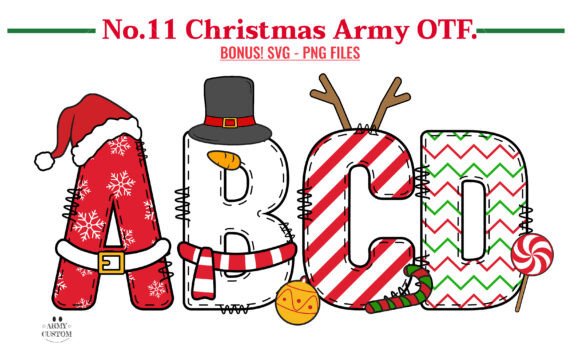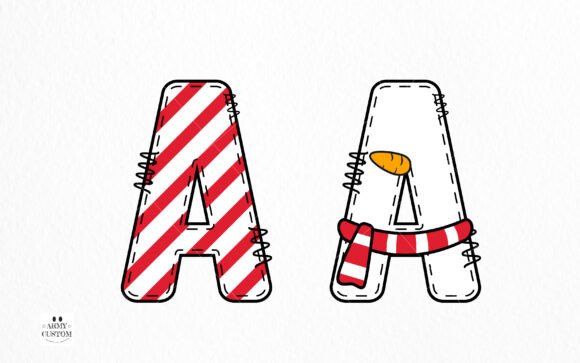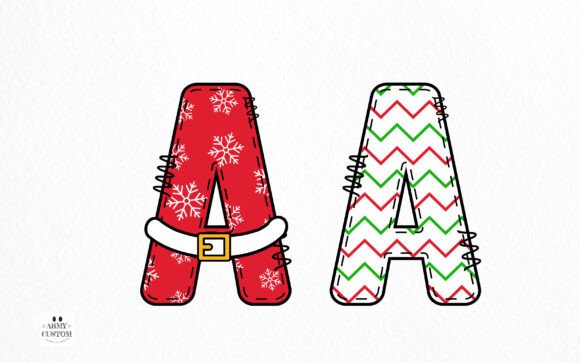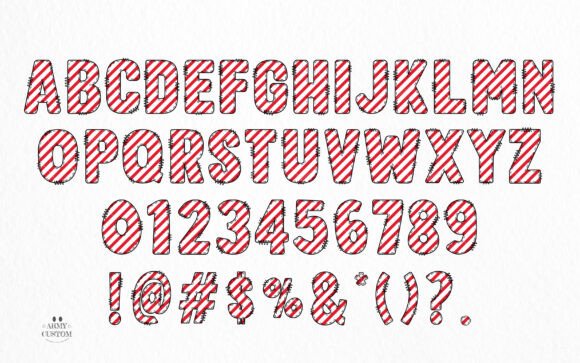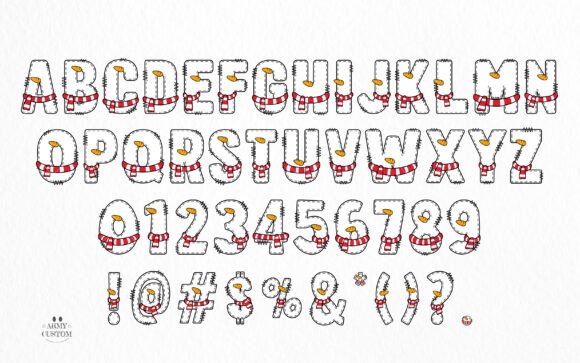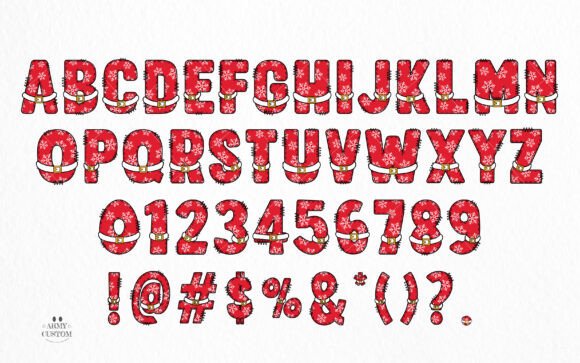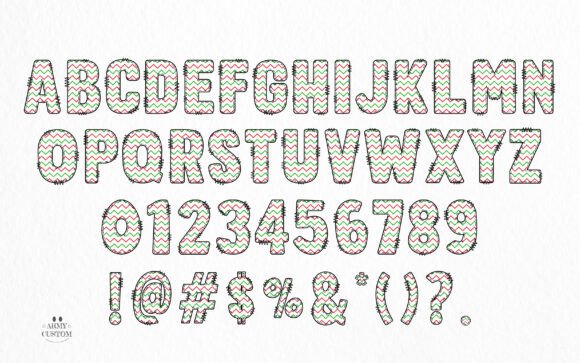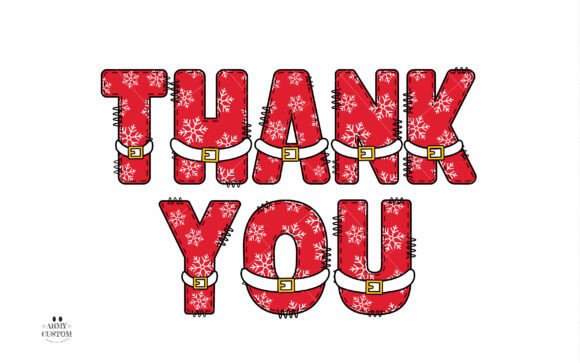
Christmas Army Bundle Font
Elevate your festive projects with the delightful ‘NO.8 Christmas Army Font Bundle’. Imbued with a sense of whimsy, this font is a playful addition to your holiday design toolkit. Its jovial style makes it an ideal choice for creating vibrant holiday decorations or adding a dash of merriment to any design project.